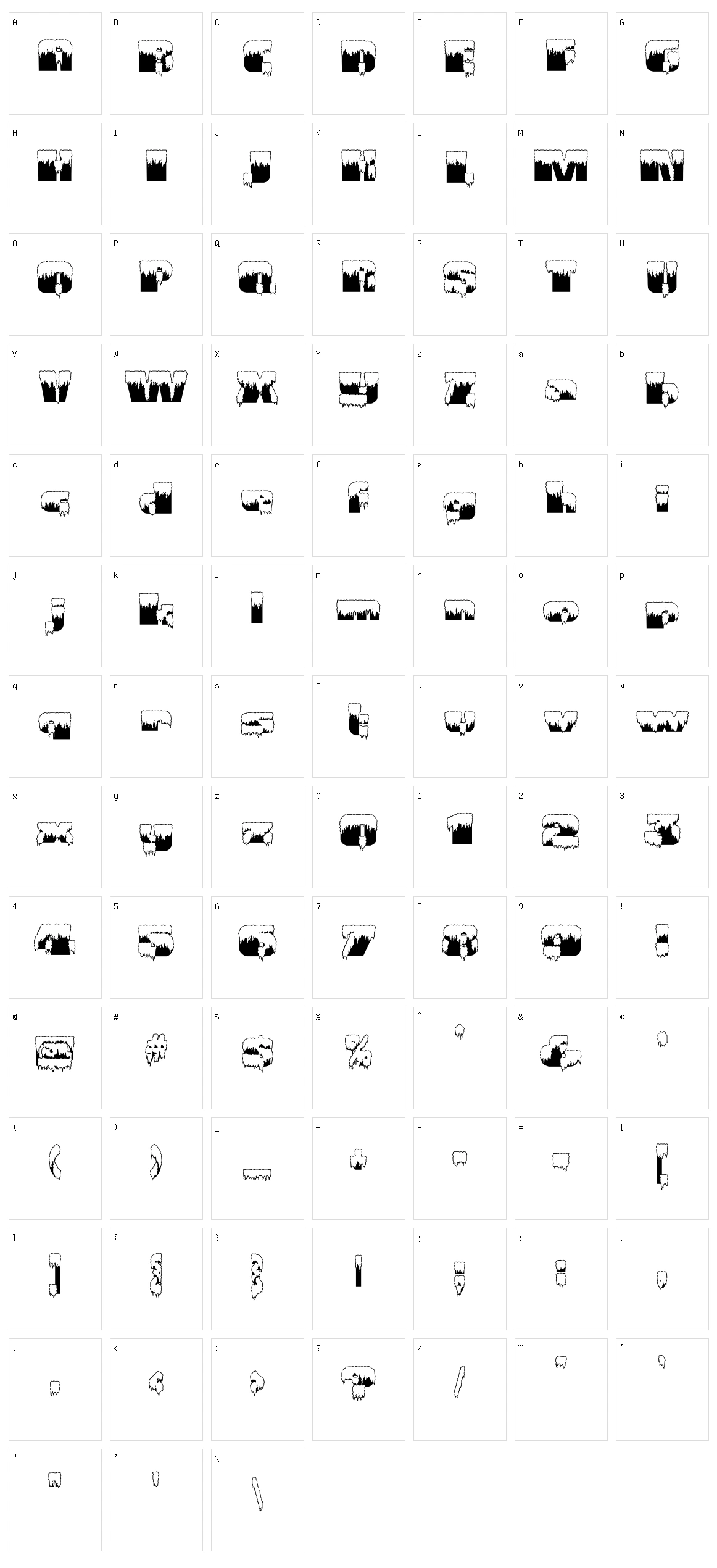
Introducing Gramius 'Blizzard' (Version 1.0; 07-28-2004), an "HT Special Effects" font... This is another one of my snow type effects... For this one I was going for overkill,... hence the stylename 'Blizzard'... I wanted to see how much snow I could get on the letters, and still keep the dripping icicles to a reasonable level, and also preserve some kind of readability... It turned out okay...
NOTE 2: The font prints very nicely at 36 points.